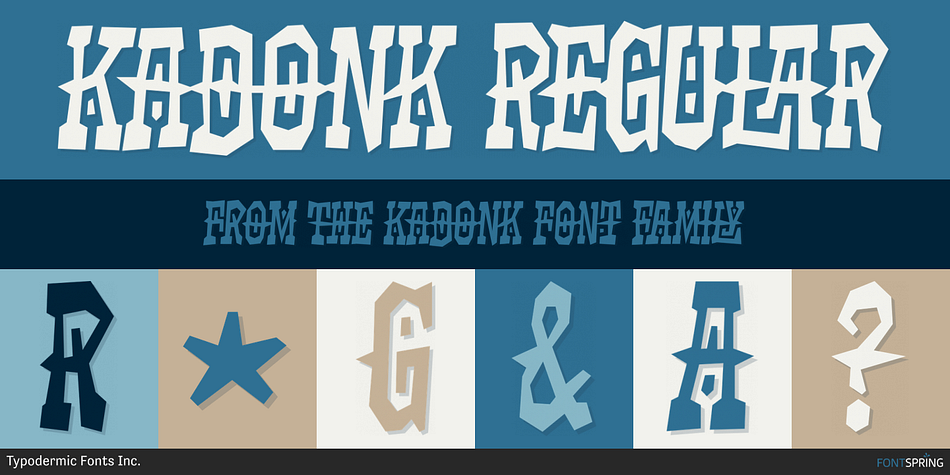
KADONK REGULAR
Kadonk is a kids and western font published by Typodermic Fonts Inc.
Listen to the rumbling roar of the mighty Kadonk! This barbaric typeface will strike fear into the hearts of your enemies with its brutal and spiky design. Its sharp edges and aggressive curves are as merciless as a battle cry.
With Kadonk, you’ll never be held back by plain and repetitive characters. This savage typeface features unique letter pair ligatures that break up the monotony and give your words a ferocious edge.
Incorporate Kadonk’s primordial, savage war cry into your messaging and let your audience know that you mean business. With its powerful presence and fierce spirit, Kadonk will help you dominate the battlefield of design. So, sound the drums of war and unleash the fury of Kadonk!